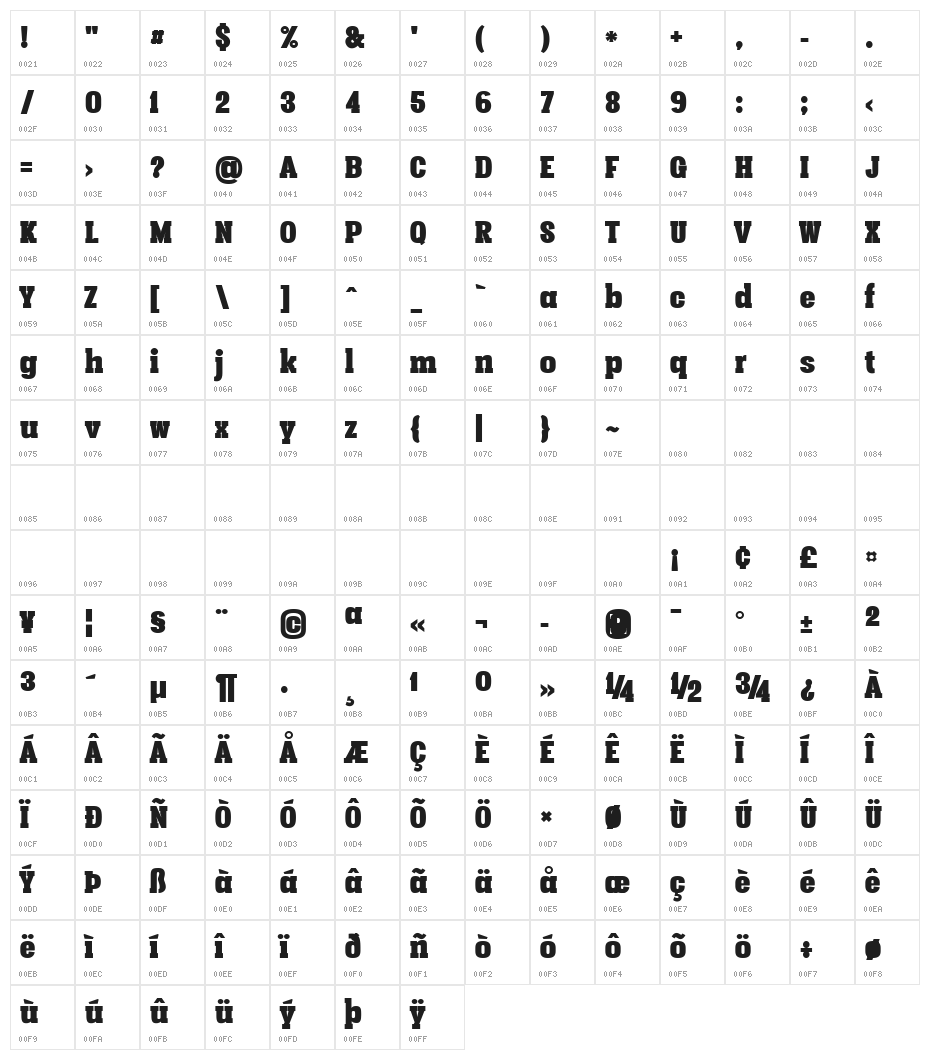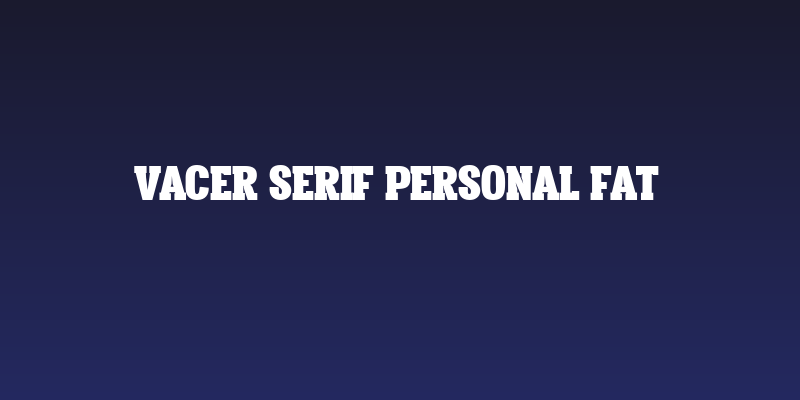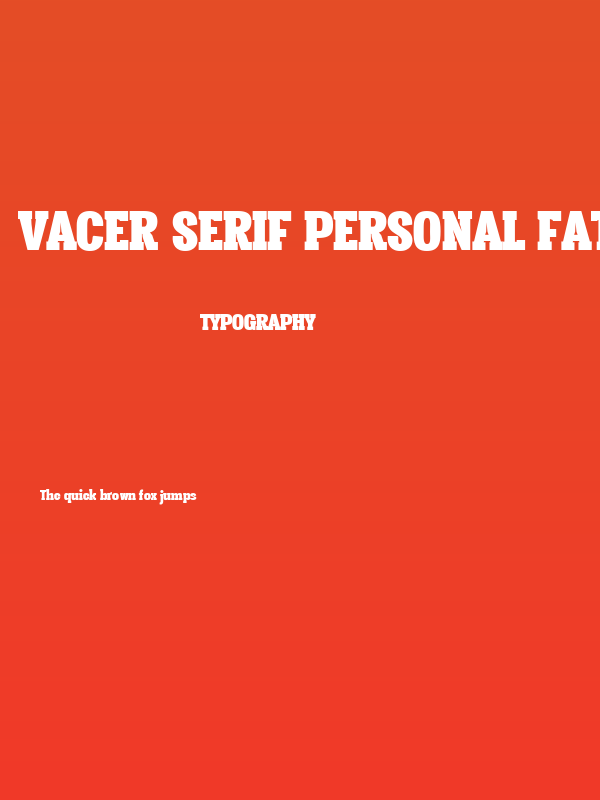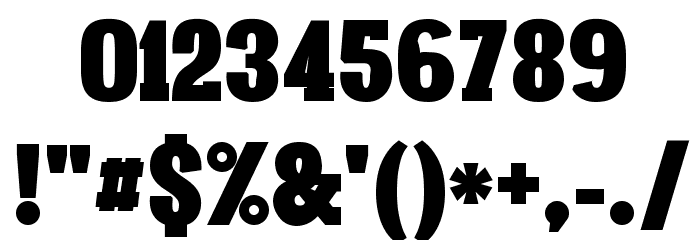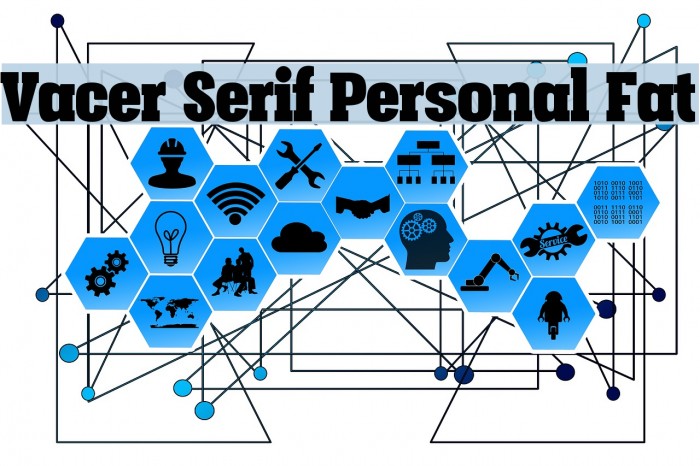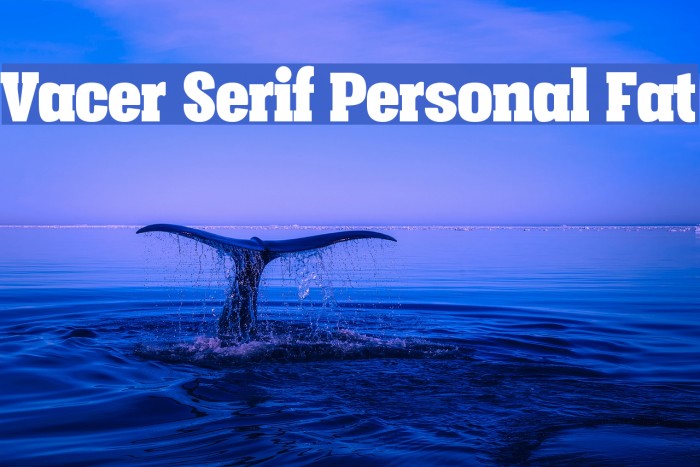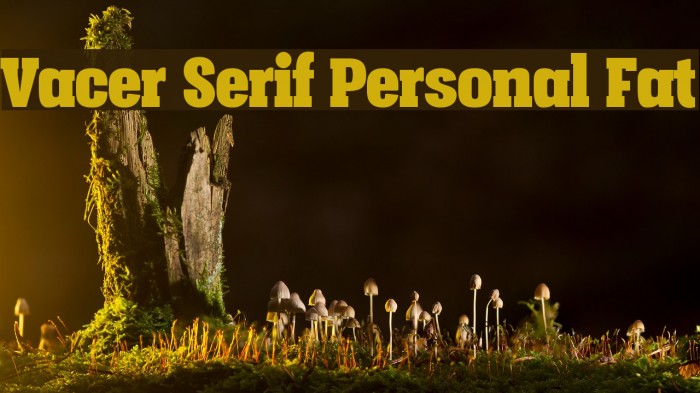
Vacer Serif Personal Fat Font
Vacer Serif Personal Fat Description
This font features bold, thick strokes with a strong presence, making it ideal for attention-grabbing headlines and titles. The characters are well-defined with a robust serif style that adds a classic touch. The uppercase and lowercase letters maintain a consistent weight, providing a harmonious look. The numerals and special characters are equally bold, ensuring they stand out in any design. The overall design is impactful, with a vintage flair that can enhance a variety of creative projects.
| Overall Style | Vintage |
| Proposed Projects | Ideal for posters, logos, branding, and editorial design where a strong, classic presence is desired. |